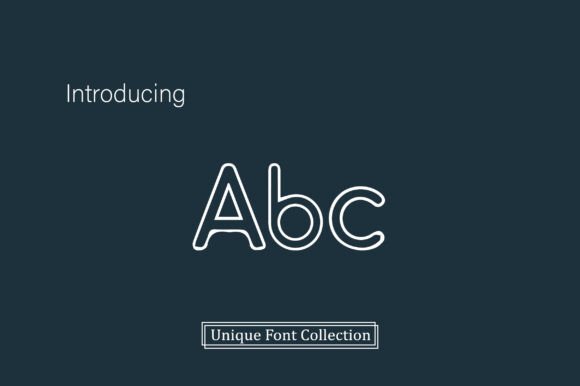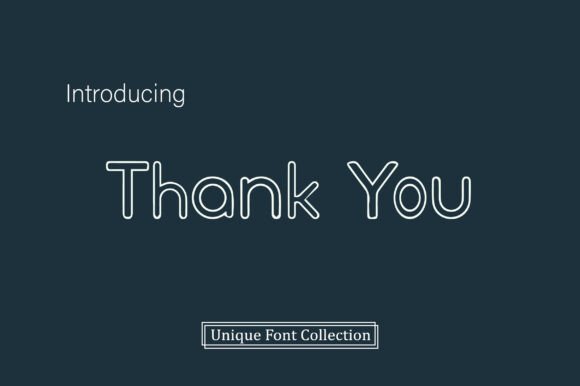
Introduction to Sans Serif Typeface Font
Have you ever found yourself stuck on a creative project, searching for that perfect font to bring your design to life? For many of us, the elusive “aha” moment comes when we stumble upon a Sans Serif Typeface Font that captures the essence of our vision. Its airy, geometric design is a masterclass in clean aesthetics, offering a crisp and breathable feel that’s perfect for modern layouts.
The Sans Serif Typeface Font is more than just a design choice – it’s a valuable resource for designers who value transparency, precision, and geometric purity. Its consistent monolinear weight creates an “outlined” effect that’s both light and structurally sound, making it an exceptional choice for technical diagrams, architectural branding, and any project that requires a clean, “blueprint” style look.
With its high-quality design and transparent background, this Sans Serif Typeface Font is a must-have for any design project. Whether you’re looking for a free download or a reliable design resource, this font is sure to deliver. Pair it with its solid counterpart or a bold grotesque for a stunning layered hierarchy that works perfectly for website headers and motion graphics.
Key Features of Sans Serif Typeface Font
- High-quality design for creative projects, offering a clean and modern look.
- Transparent background, allowing for seamless integration into various design environments.
- Font size: 12-72 points, with a resolution of 300 DPI, suitable for print and digital applications.
- Unique characteristics include its geometric shapes, straight lines, and lack of serif, making it perfect for titles, headings, and body text in modern designs.
Honest Review: Sans Serif Typeface Font
As a designer, I’m always on the lookout for high-quality design resources to elevate my creative projects. Recently, I had the chance to work with the Sans Serif Typeface Font, and I’m excited to share my honest review.
What works well: ✨ The font is incredibly versatile and can be used for a wide range of design applications, from digital interfaces to print materials. The transparent background makes it easy to layer and manipulate the font without any distractions. The font’s modern design aesthetic is also perfect for any creative project that requires a clean and minimal look.
- High-quality design that is perfect for creative projects
- Transparent background for easy manipulation
Limitations: ⚠️ While the font is incredibly versatile, it may not be the best choice for projects that require a more traditional or vintage aesthetic. Additionally, some users may find the font too minimalist, which can make it difficult to read in certain contexts.
Overall impression: I’m thoroughly impressed with the Sans Serif Typeface Font, and I would highly recommend it to any designer looking for a high-quality, versatile font for their creative projects.
Sans Serif Typeface Font is commonly used in various design projects, including business cards, brochures, and websites. It’s also a popular choice for presentations, reports, and documents. With its transparent background and high-quality design, Sans Serif Typeface Font is a versatile and effective design resource.